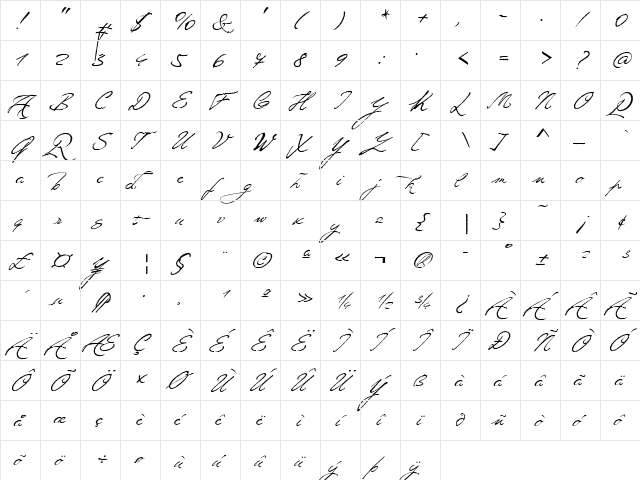
Ivana Script URW D Regular
Design Context for Ivana Script URW D Typeface
Ivana Script URW D flows with the natural rhythm of handwritten lettering, making it ideal for designs that call for warmth and personal expression.
Font Pairing: Combine Ivana Script URW D with a simple geometric sans for maximum contrast — the tension between flowing curves and clean structure is a classic typographic pairing.
Pro Tip: Pair Ivana Script URW D with a clean sans-serif for supporting text. The contrast between fluid script and geometric structure creates an elegant typographic hierarchy.